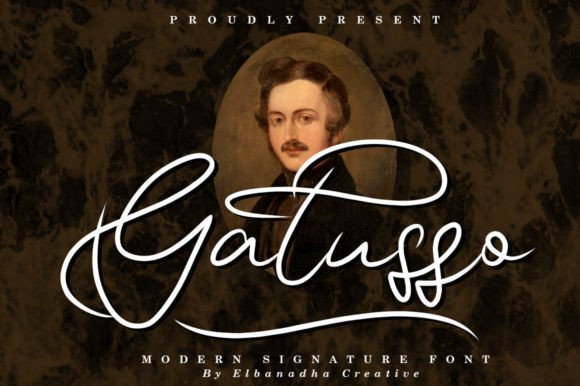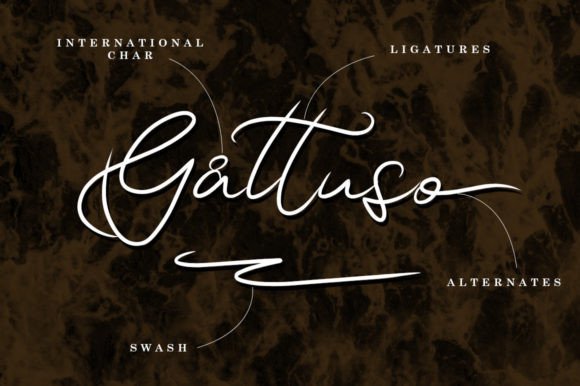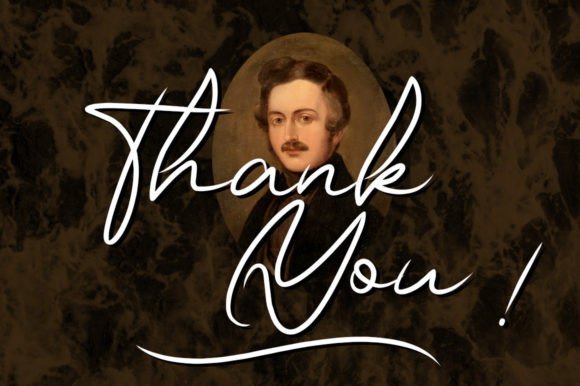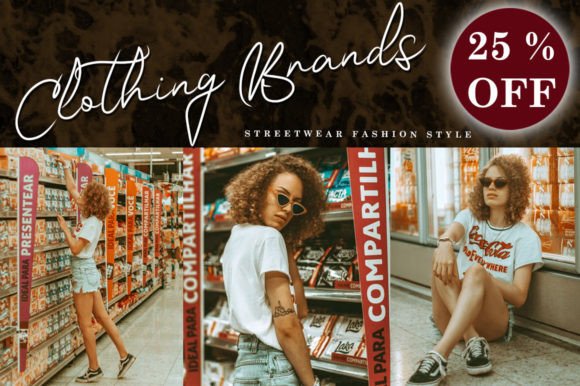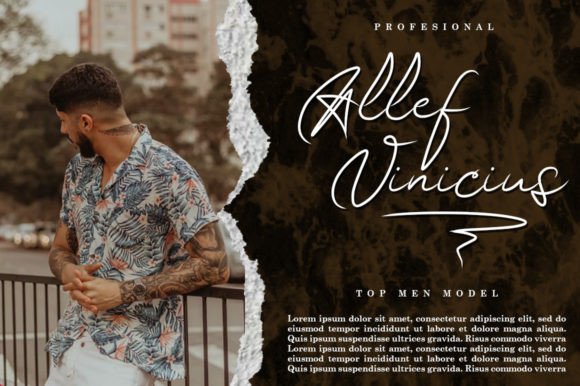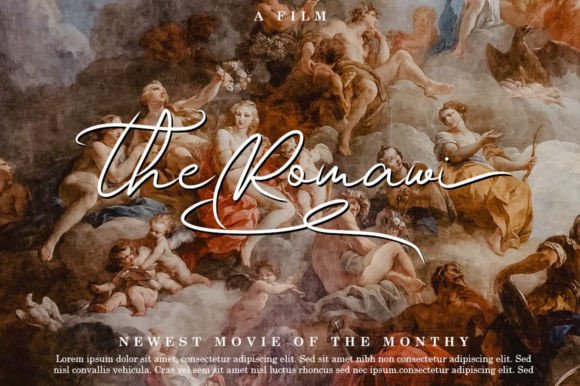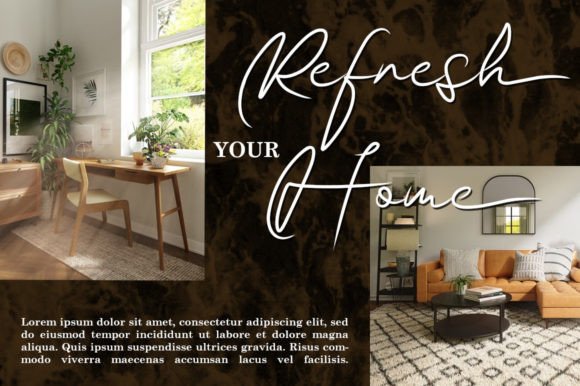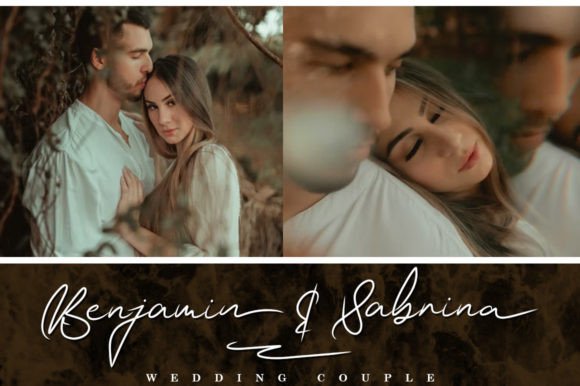
Gatusso Font
About Gatusso Font
Presenting Gatusso, a beautiful and light handwritten font designed to impart a unique feel and a stunning impact to your design projects. This font goes beyond conventional styles, adding a touch of luxury and sophistication to every letter. Gatusso is not just a font; it’s a design element that elevates your creative vision.
The beauty of Gatusso lies in its delicate and light strokes, exuding an elegant charm that can effortlessly enhance various design projects. Whether you’re working on invitations, branding materials, or any other creative endeavor, this font brings a distinctive touch that sets your work apart.
Envision Gatusso adding a luxury spark to your projects. Picture it gracing wedding invitations, branding materials, or creating a stunning impact on any visual presentation. This font becomes not just a tool but a key contributor to the overall aesthetic, infusing a sense of sophistication and uniqueness into your designs.
In summary, Gatusso is a beautiful and light handwritten font that transcends the ordinary, leaving a lasting impression on your creative projects. Let it be the source of luxury and impact in your design toolkit, as you explore its versatility and unique feel to create visually stunning and memorable works of art.